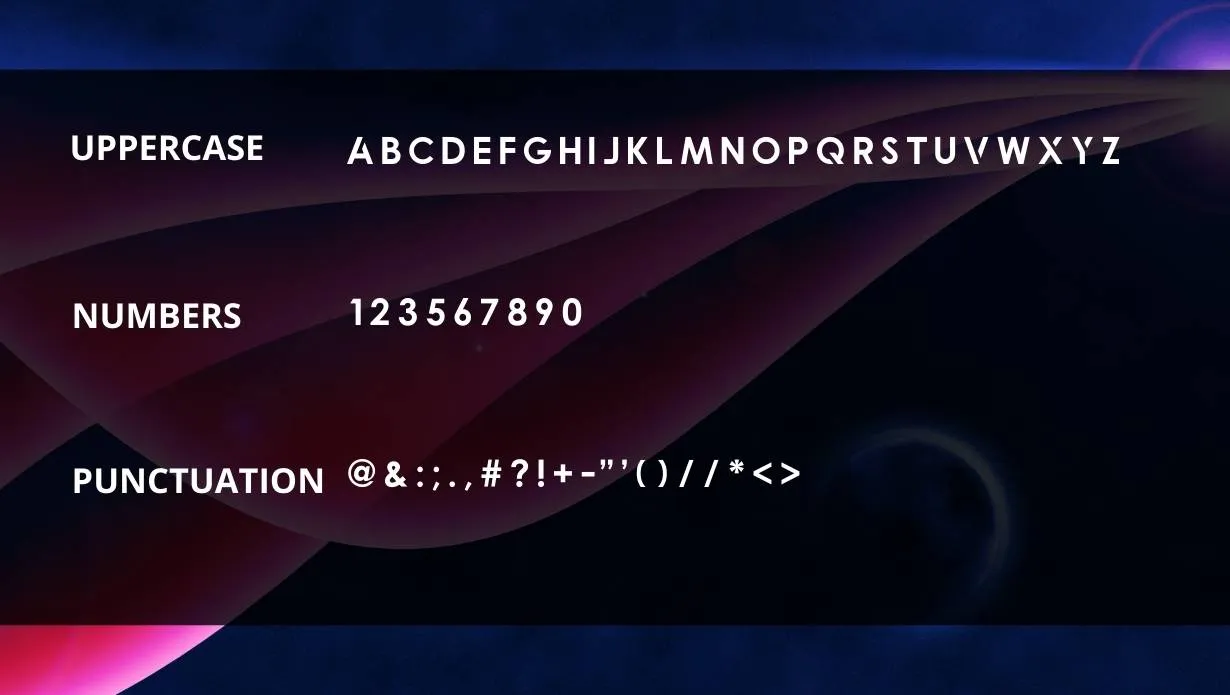
Qualy Font is a sans-serif font created in 2012 by Alexander Makarov. The name comes from the combination of the words “quality” and “sans-serif”.
The Qualy Typeface family includes 6 weights (Light, Regular, Medium, Bold, Black, Heavy) and 2 widths (Normal, Condensed). The Qualy Typeface family has a total of 48 fonts.
The design of Qualy Font was inspired by the work of Frutiger, helvetica and Akzidenz Grotesk. The goal was to create a sans-serif font suitable for both body text and headlines.